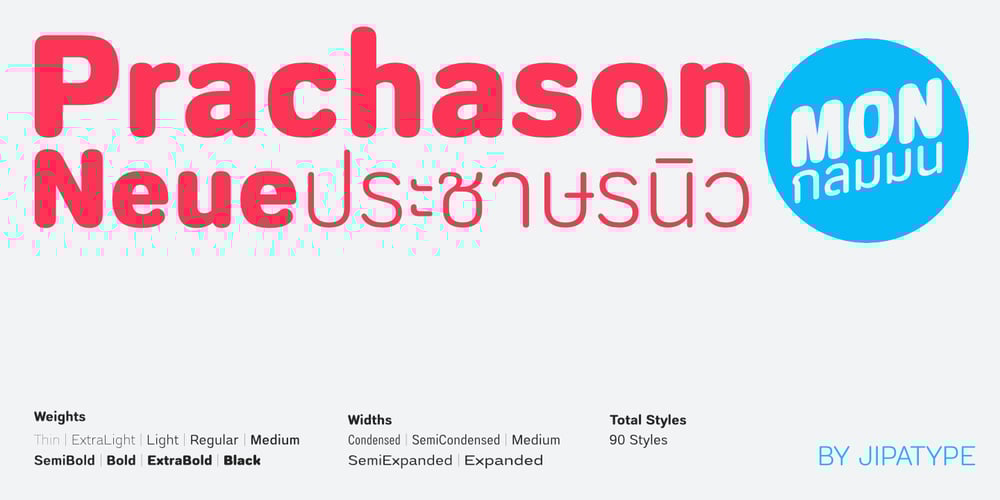
Prachason Neue Mon
Prachason Neue Mon font
Prachason Neue Mon Font Family was designed by Anupap Jaichumnan and published by Jipatype. Prachason Neue Mon contains 90 styles and family package options. Prachason Neue Mon is a versatile rounded sans serif typeface designed to support both Thai and Latin-1 character sets. This contemporary font family offers an extensive range of 90 styles, encompassing variations from Thin to Black weights and Condensed to Expanded widths. The typeface’s clean, roundedm and minimalist design makes it suitable for a wide array of applications in both print and digital media.